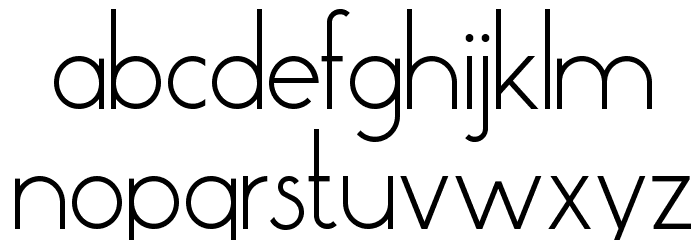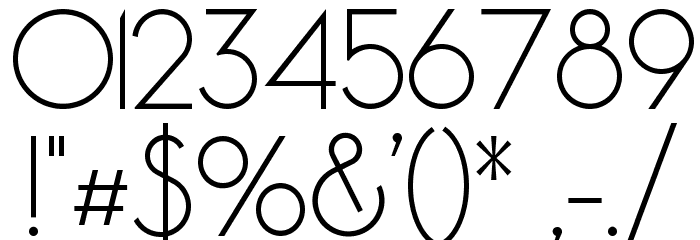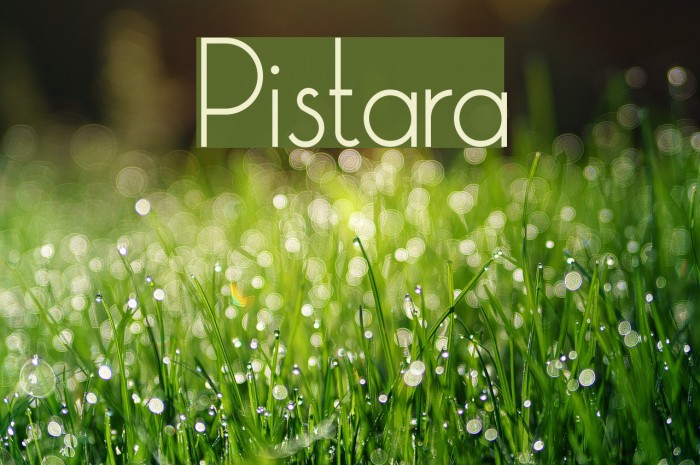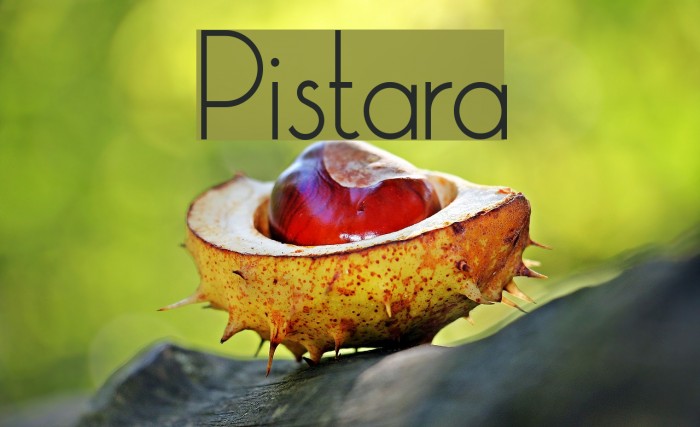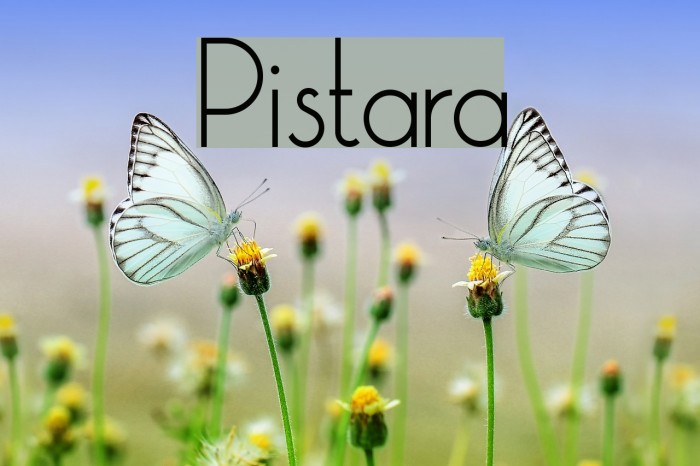
Pistara Font
This font features a clean, geometric design with a modern aesthetic. The characters are constructed with consistent stroke widths, giving it a uniform appearance. The uppercase letters are tall and elegant, while the lowercase letters maintain a similar geometric style, enhancing readability. The numerals are distinct and align well with the overall design, making them suitable for various applications. Special characters are included, maintaining the same sleek and contemporary look. The font's simplicity and clarity make it versatile for both digital and print media.
A modern, geometric sans-serif font with consistent stroke widths and high readability.
- Proposed Projects: Ideal for branding, advertising, web design, and editorial layouts due to its clean and modern look.